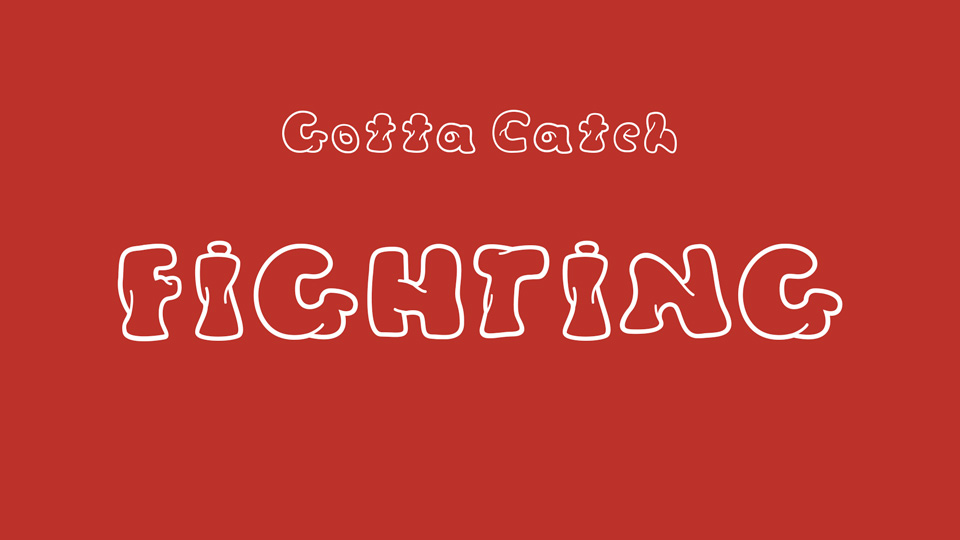
Download Gotta Catch Fighting font, an experimental hand lettered typeface designed during a type design initiation workshop given by Lucas Descroix in March 2021.
Designer: Julia Rodriguez